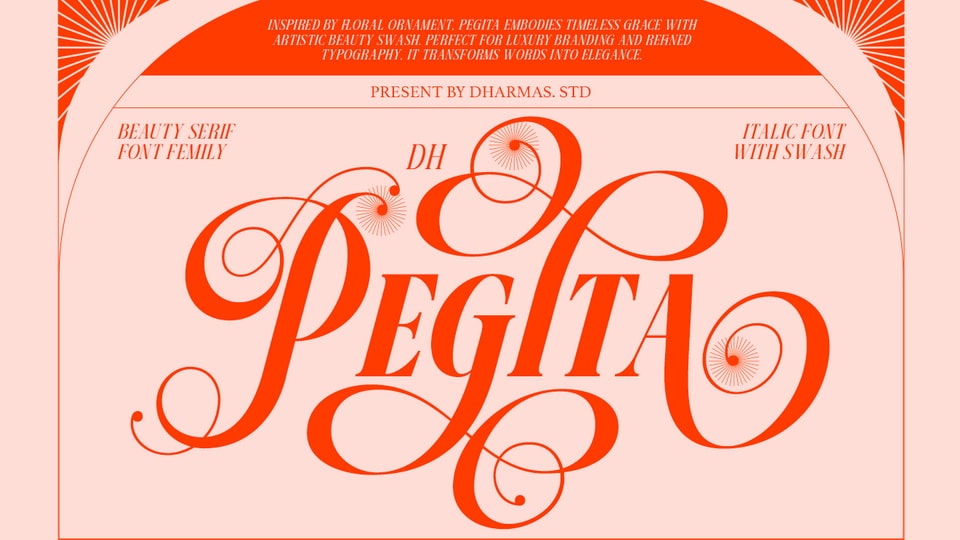
Download Dh Pegita font, a refined serif display typeface inspired by the delicate beauty of floral ornaments and designed for both sophistication and modern charm.